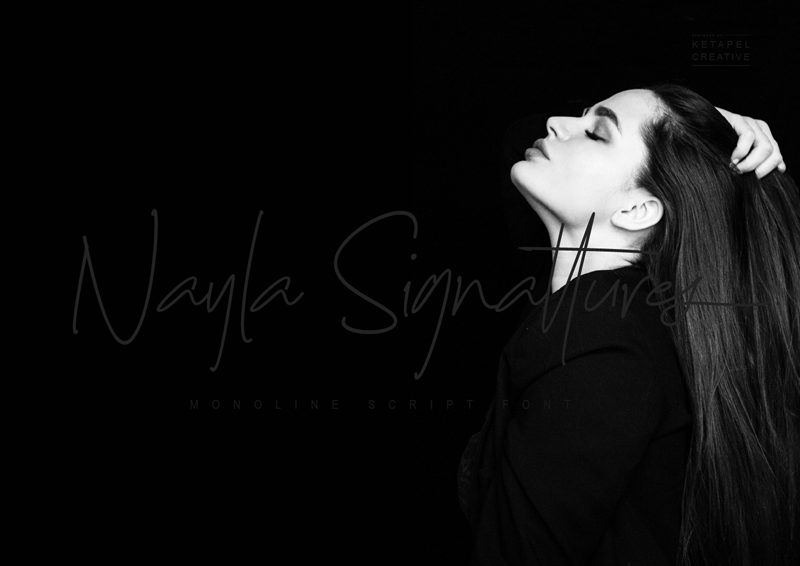
Nayla Signattures (signature) is a simple monoline script handwritten font that feels equally charming and elegant. Great for creating slick & stylish lettering natural feel handwriting taste. Fall in love with its authentic feel and use it to create gorgeous wedding invitations, beautiful stationary art, eye-catching social media posts, and cute greeting cards. Includes in uppercase, lowercase, standard numbers & punctuation, multilingual support. *This font is demo version free for personal use. Please visit https://www.creativefabrica.com/designer/ketapelcreative/ref/237095 to purchase commercial license and more other products. download & enjoy !! *Contact me : ketapelcreative@gmail.com Thanks for downloading this fonts. Best Regards |